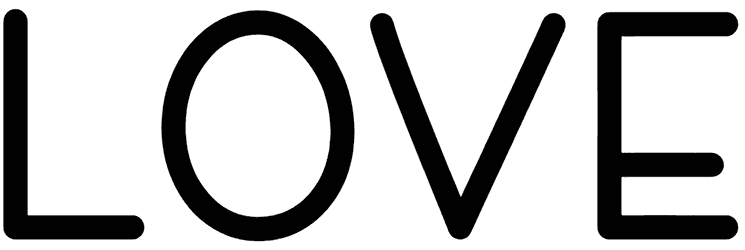
Love Font
Love can transform simple words into something softer and classier. This love font has a powerful feeling to it, and every character in it has a long and neat design. You can use it for movie names and posters, sales, events, fancy party flyers, and book titles. All the characters are capital.